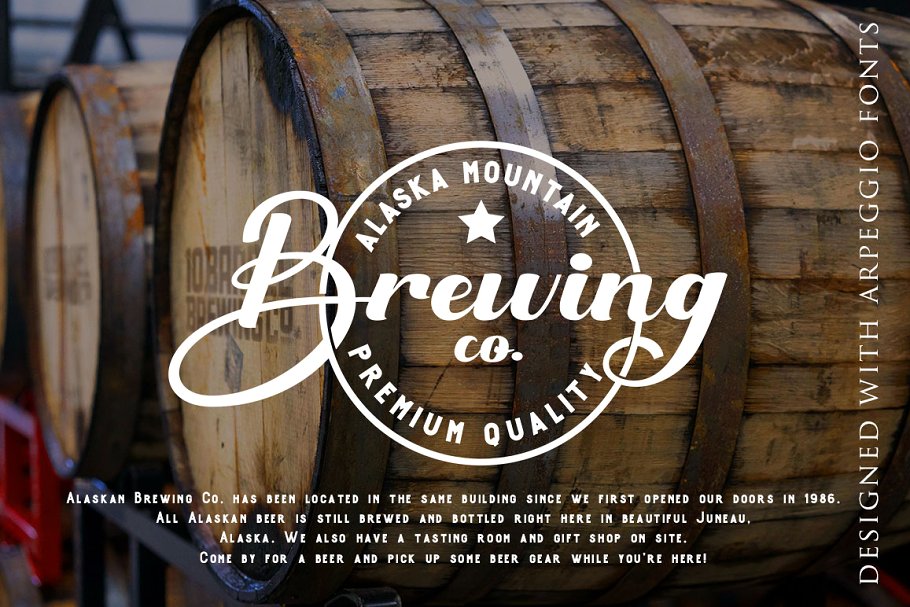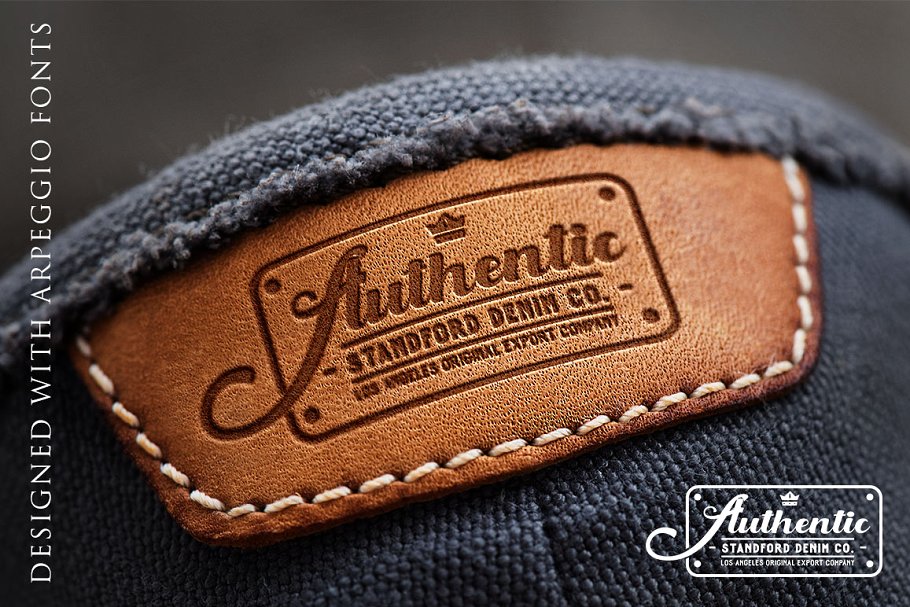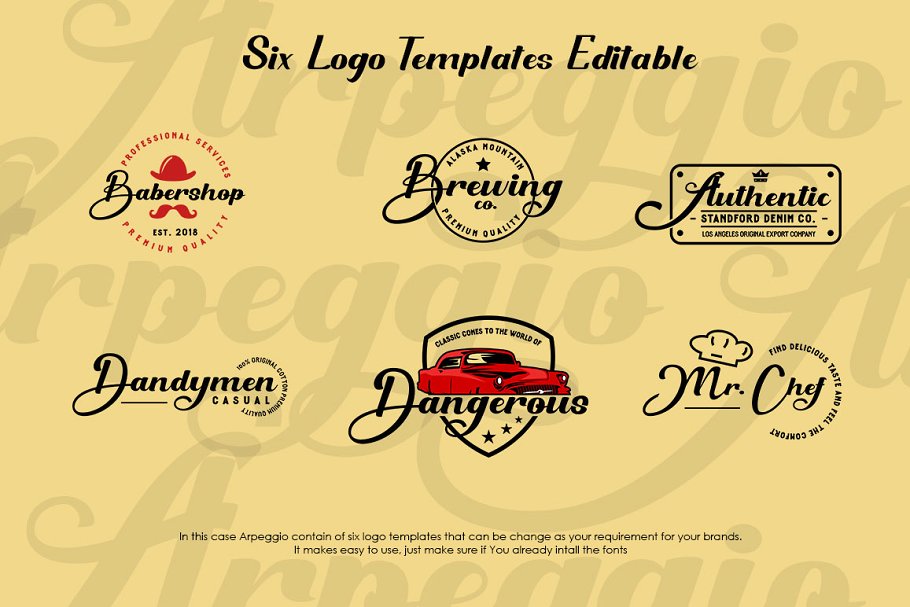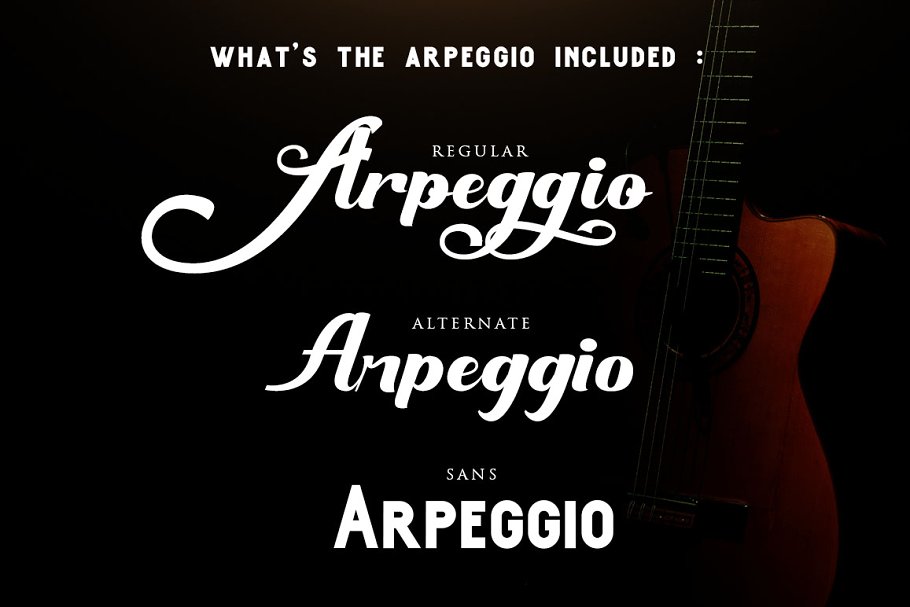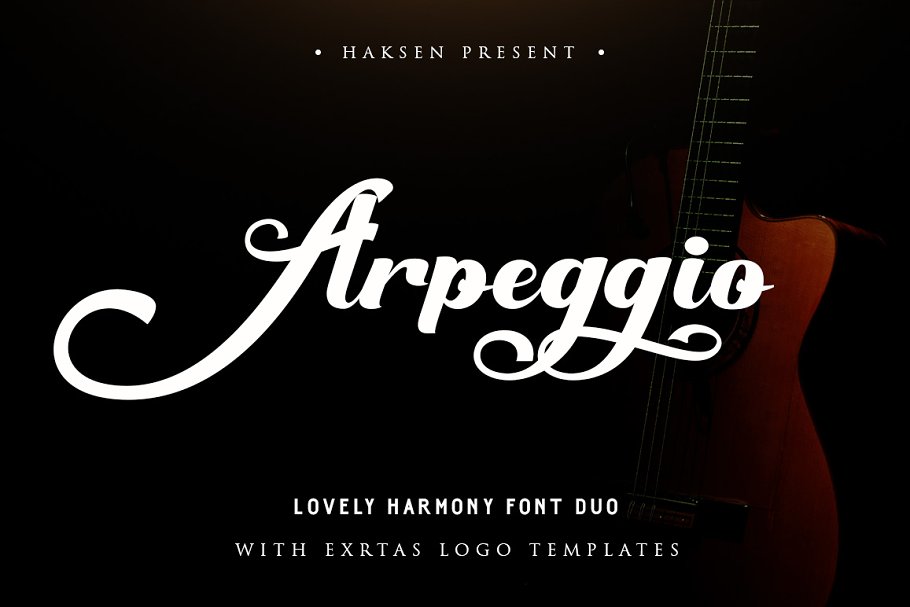
Arpeggio Font Duo
Hi designer. A modern lovely harmony font duo. Give it a try and evaluate it. Introducing Arpeggio Script Font. It is designed and shared by Haksen. Arpeggio – The new fresh handmade script and sans font. Very suitable for greeting cards, branding materials, business cards, quotes, posters, and more! This font are perfect for all brand 🙂